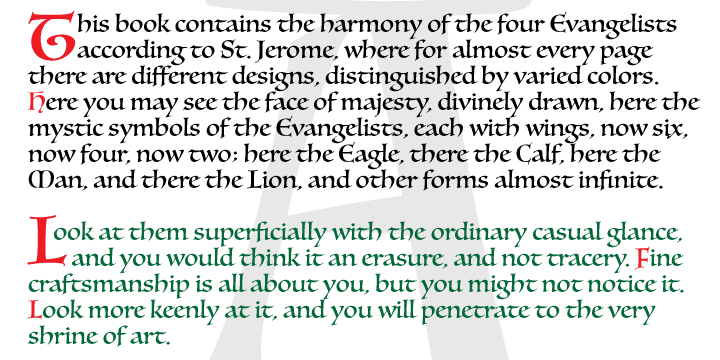
Luminari
Designed by Philip Bouwsma, Luminari is a display font published by Canada Type.
Philip Bouwsma returns with yet another great manifestation of historical calligraphy.
Luminari is an amalgam of High Middle Ages writing, a blend that combines the ornate Church hands with the simple Carolingian from the ninth to the fifteenth centuries. Its majuscules are particularly influenced by the versals found in the famous Monmouth psalters, as well as those done by the Ramsey Abbey abbots in the twelfth century. The minuscules also exhibit some influence from the book hand of prolific humanist Poggio Bracciolini from the early fifteenth century. Italian and essentially romanesque in style, Luminari exercises a slight tension between the round forms and the angular “gothic” styling.
Luminari was updated with plenty of alternates and expanded language support in 2012, then again in 2017. It now supports a very wide range of codepages, including Cyrillic, Greek, Central and Eastern European, Turkish, Baltic, Vietnamese, and of course Celtic/Welsh.